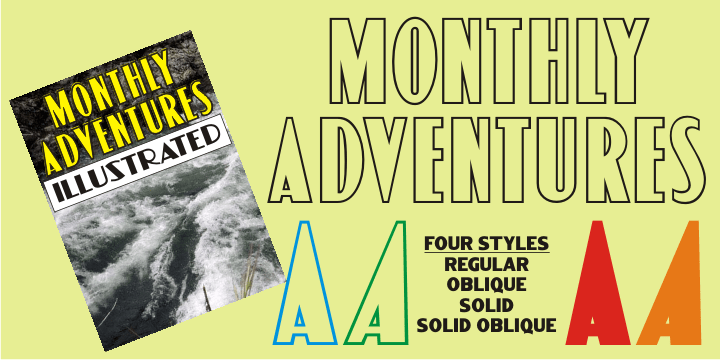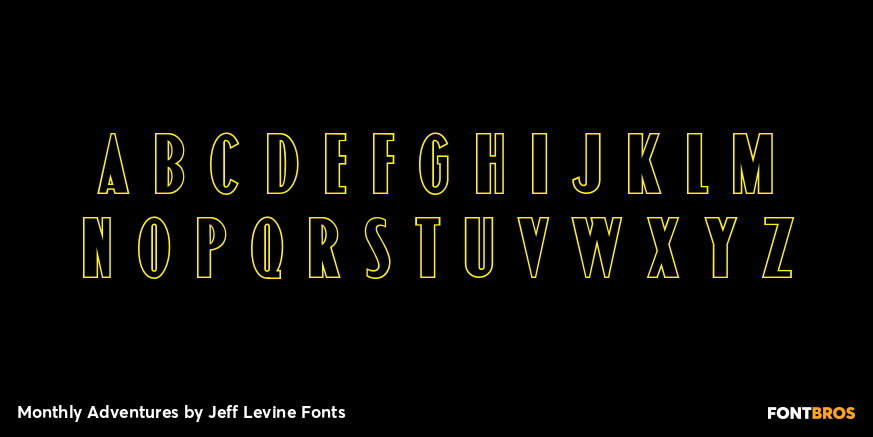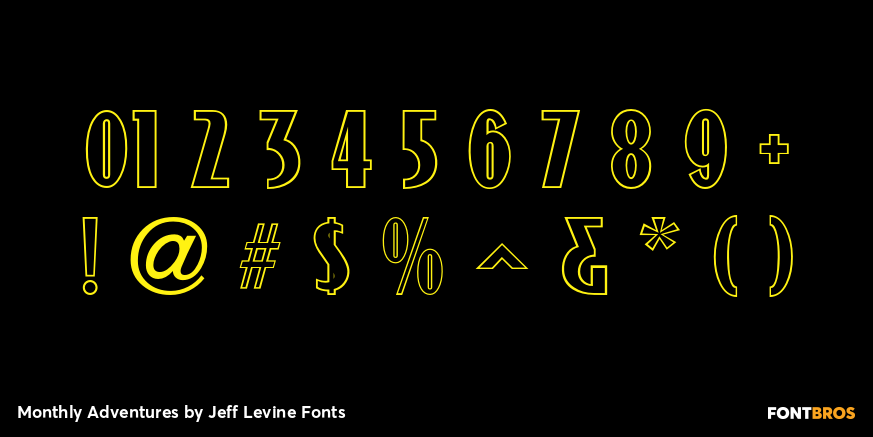
Monthly Adventures
The cover lettering of a 1940s issue of a romance comic spotted in an auction online was the inspiration for Monthly Adventures JNL.
Classic in its Art Deco look, this condensed outline font is evocative of the hand-lettered titles used during the Golden Age of the comic book.
Available in both the original outline version and a thick, solid version with the outline removed, as well as oblique variations of both.